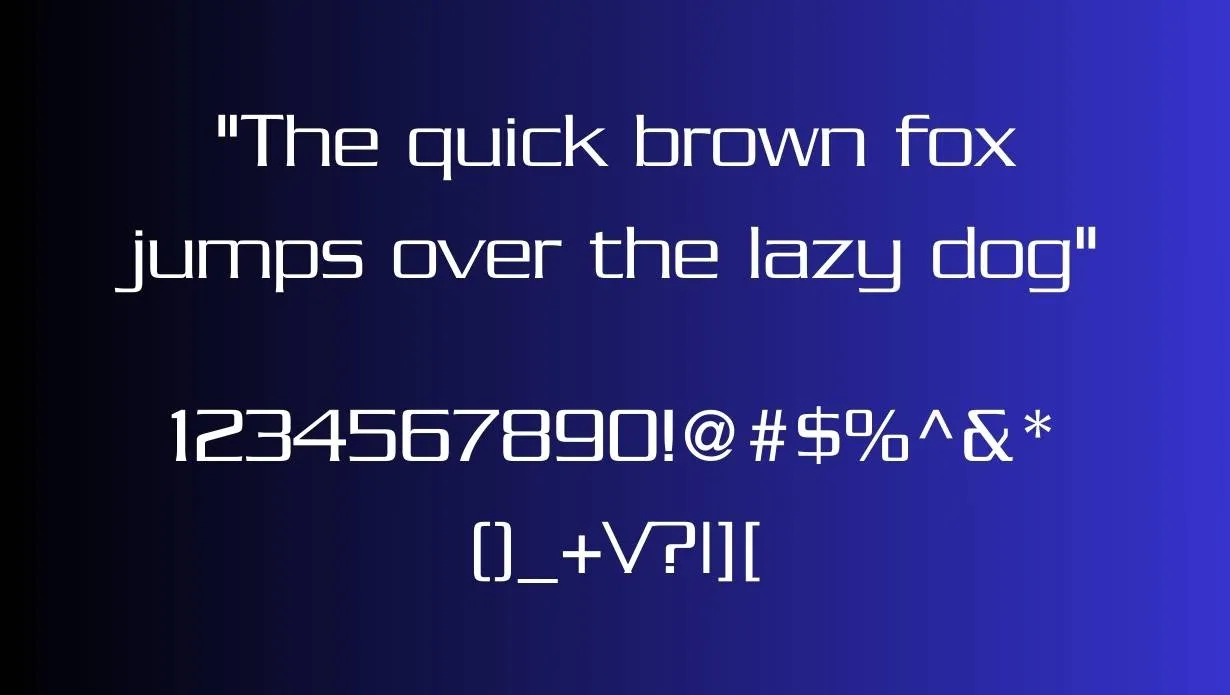
Serpentine Light font exudes a professional and clean appearance, making it an ideal choice for corporate designs, modern posters, and branding elements in Adobe CSS.
Its versatility allows it to be used in various settings, from corporate presentations to sleek product advertisements.
| Name | Serpentine Light Font |
| Designer | Dick Jensen |
In Adobe CSS, this font is frequently utilized for headings, banners, and logos, providing a polished and contemporary look. In Microsoft Word, it lends a sense of neatness and professionalism to document titles and headings, making them appear sleek and organized.